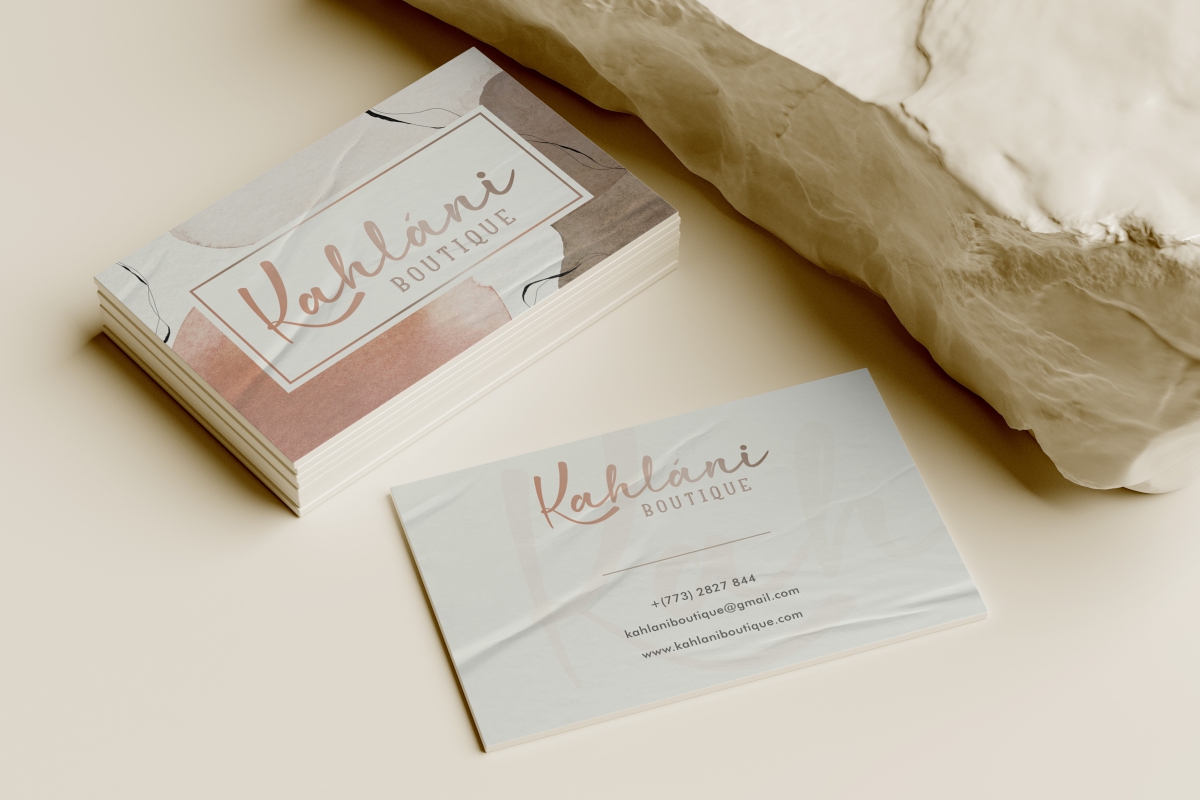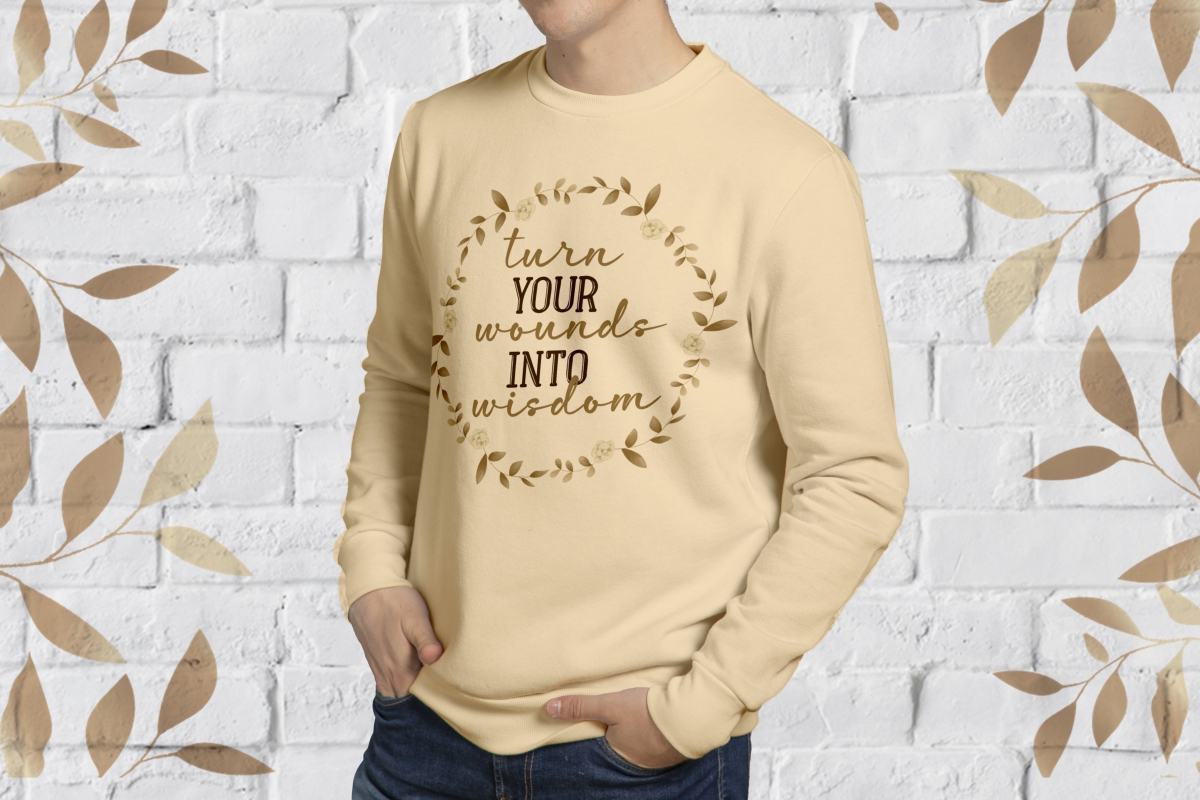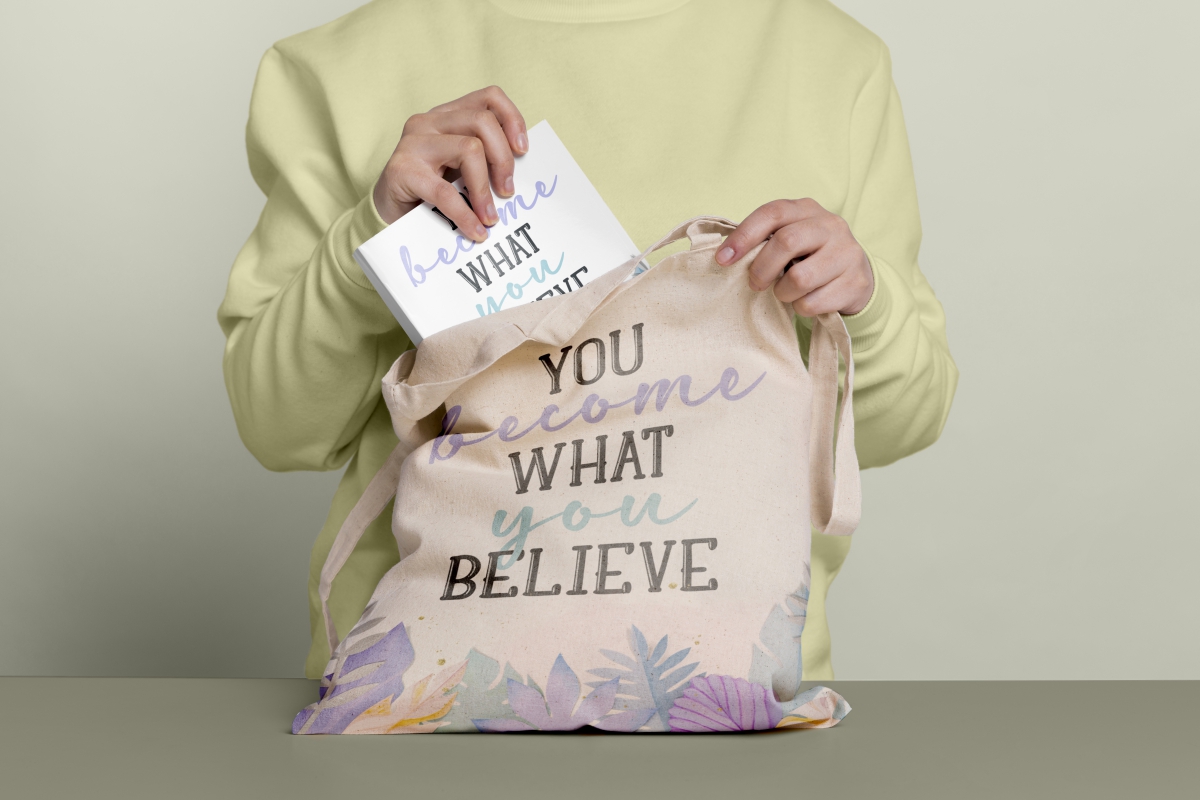
Ralins Font Duo comes with a textured serif display with beautiful handwritten script that looks like classic typography and still easy to read. It’s the perfect duo for business card, cosmetic, DIY crafts, label, logo branding, photography, product packaging, social media post, wedding design, and more. Ralins Serif has textured outline edges and can work well together or separately.
Ralins Font include Uppercase and lowercase letters, number, punctuation. For Ralins Script also include ligatures and alternates. This font that feels playfully nostalgic and delivers an incredible vintage aesthetic. These serif and handwritten fonts are so versatile that you can combine them for unique variations and typefaces.